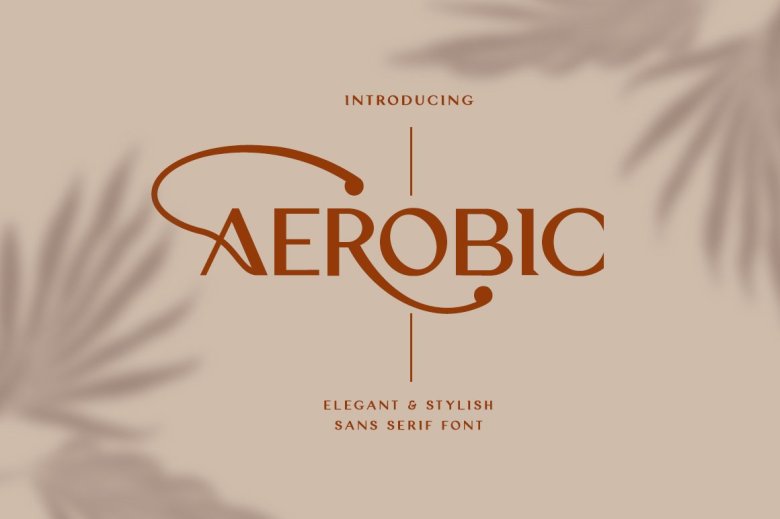
Aerobic Font
Aerobic Moder. Elegant font with a unique design special alternative handcrafted glyphs, and multilingual support. It is very easily used in large and small sizes. Classy Marisa is perfect for branding projects, Logo design, Clothing Branding, and product packaging product, magazine headers, signs and others. or as a stylish text overlay to any background image.
Aerobic Sans Serif Font